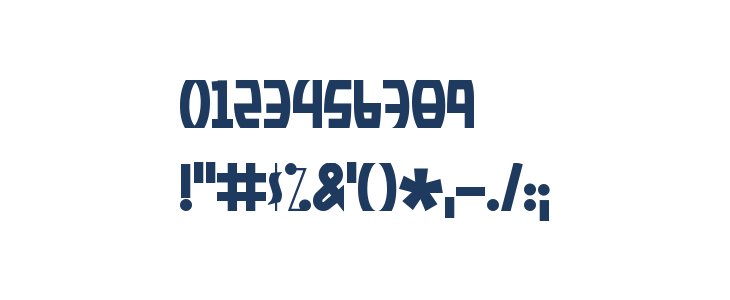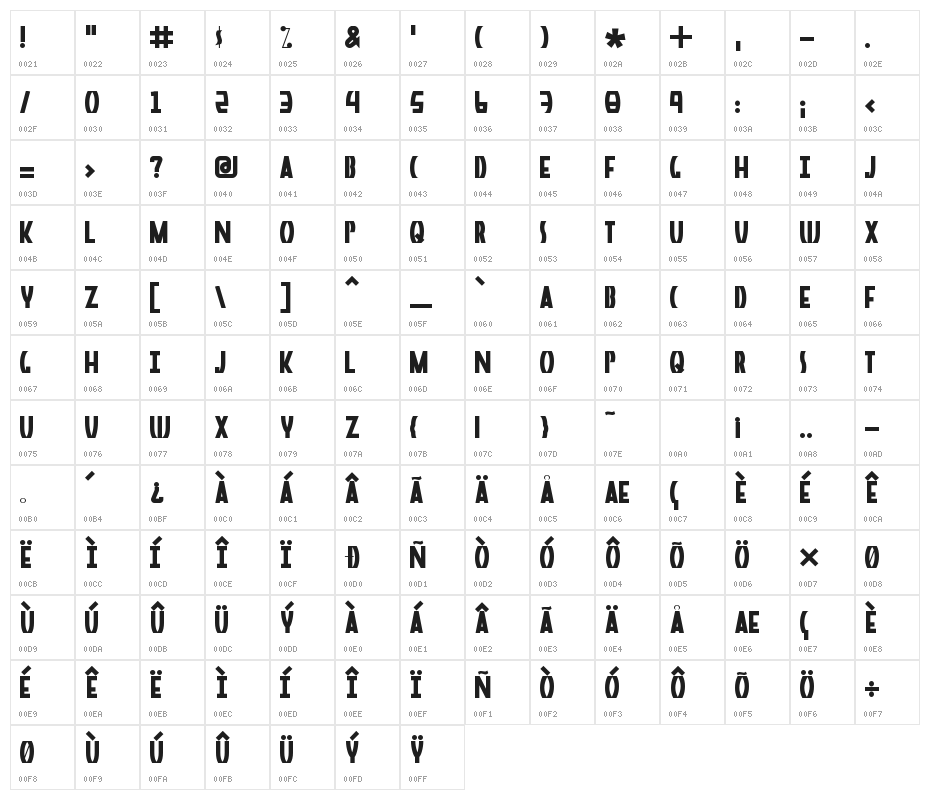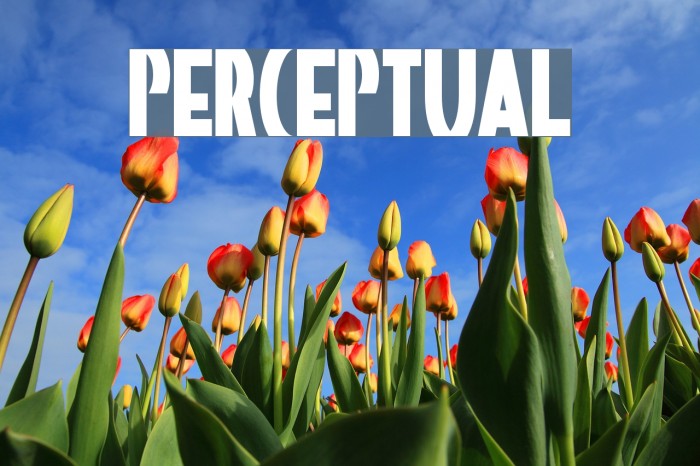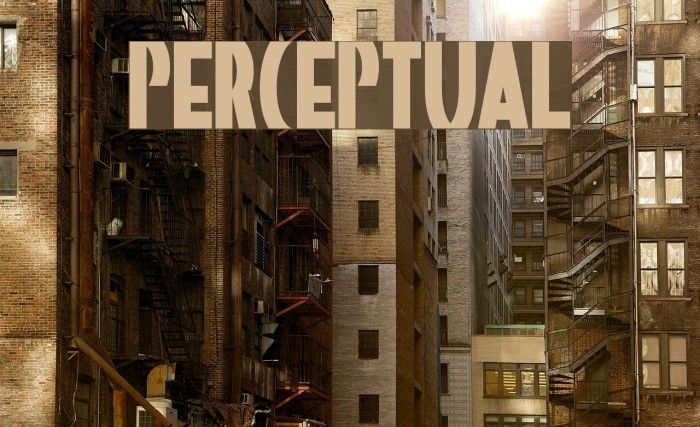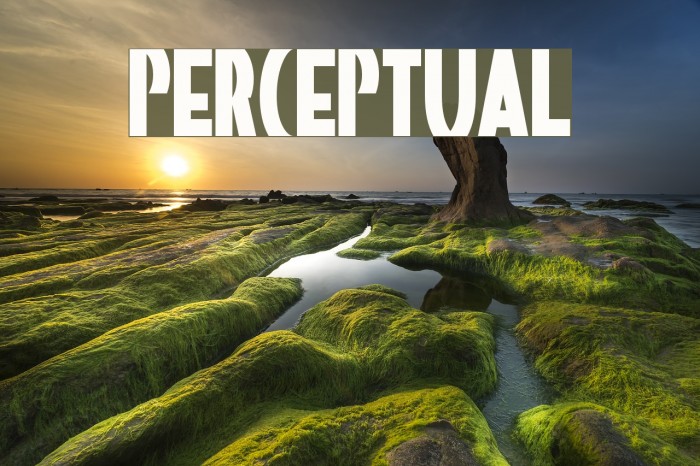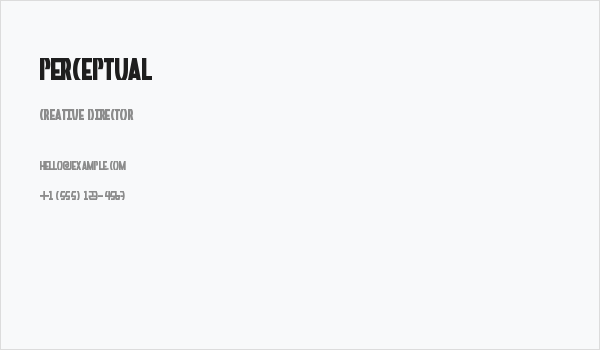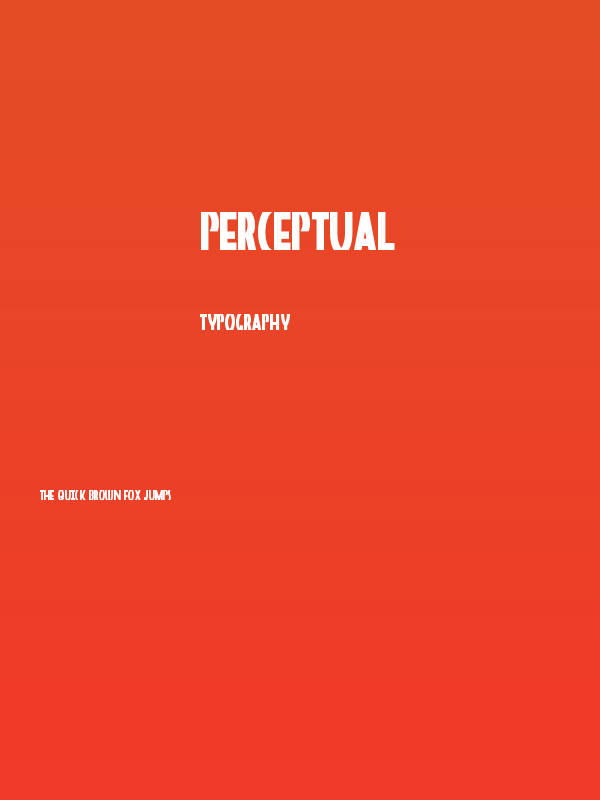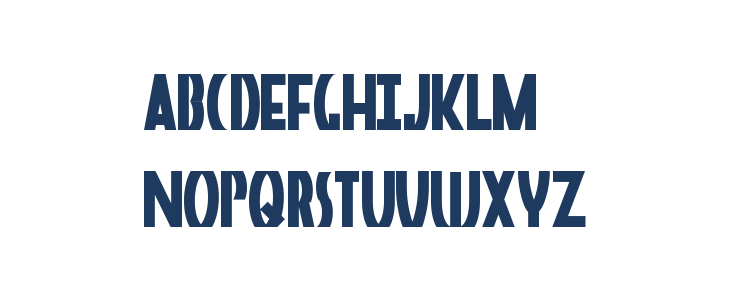
Perceptual Font
This font features bold, geometric letterforms with a strong presence. The characters are designed with sharp angles and a consistent stroke width, giving them a modern and assertive appearance. The uppercase and lowercase letters maintain a uniform height, enhancing the font's structured look. The numerals and special characters follow the same design principles, ensuring a cohesive visual style across all elements. The font's distinct style makes it suitable for impactful headlines and branding projects where a strong visual statement is desired.
| Proposed Projects | Ideal for branding, posters, headlines, and any design requiring a strong visual impact. |